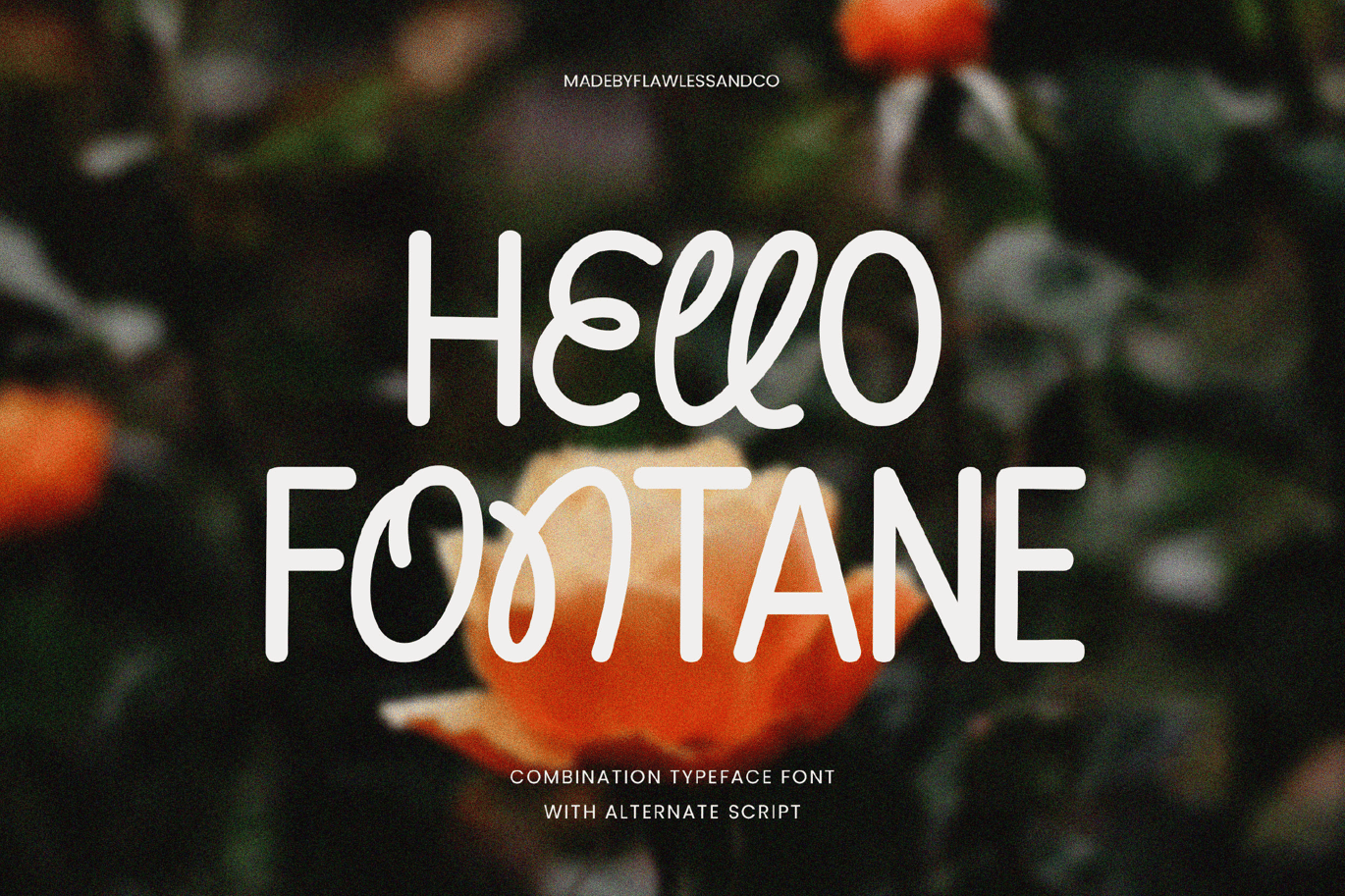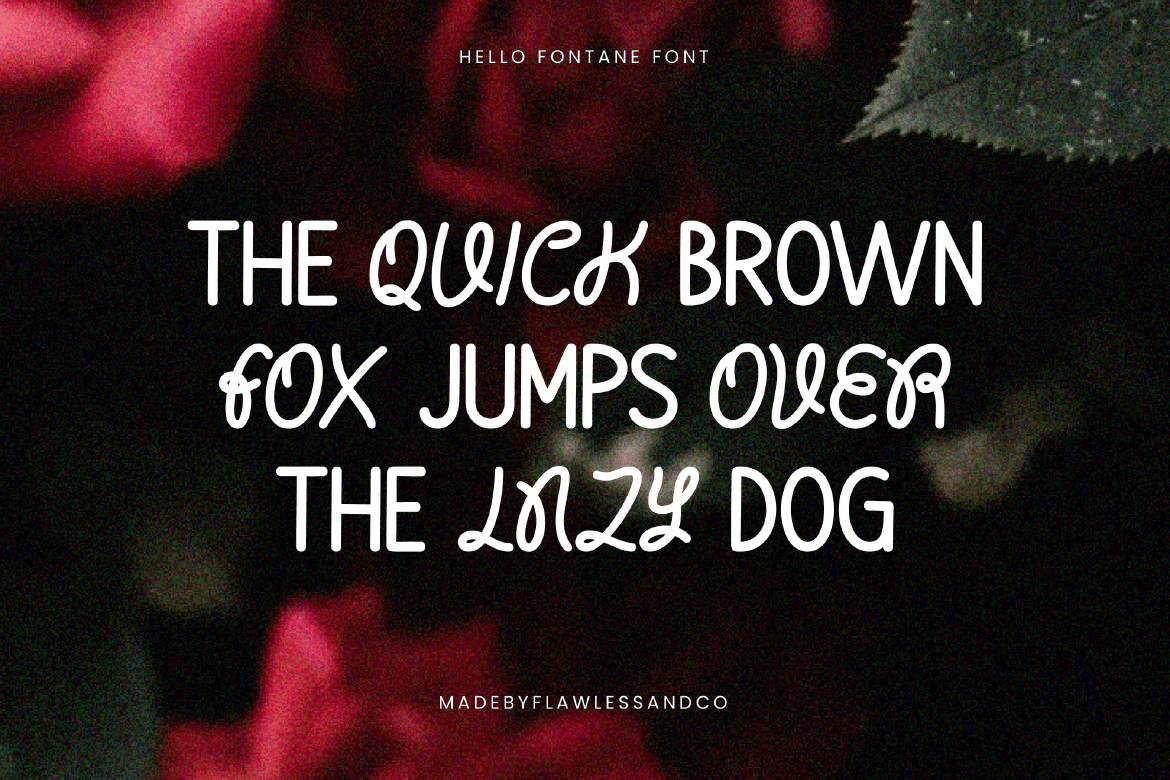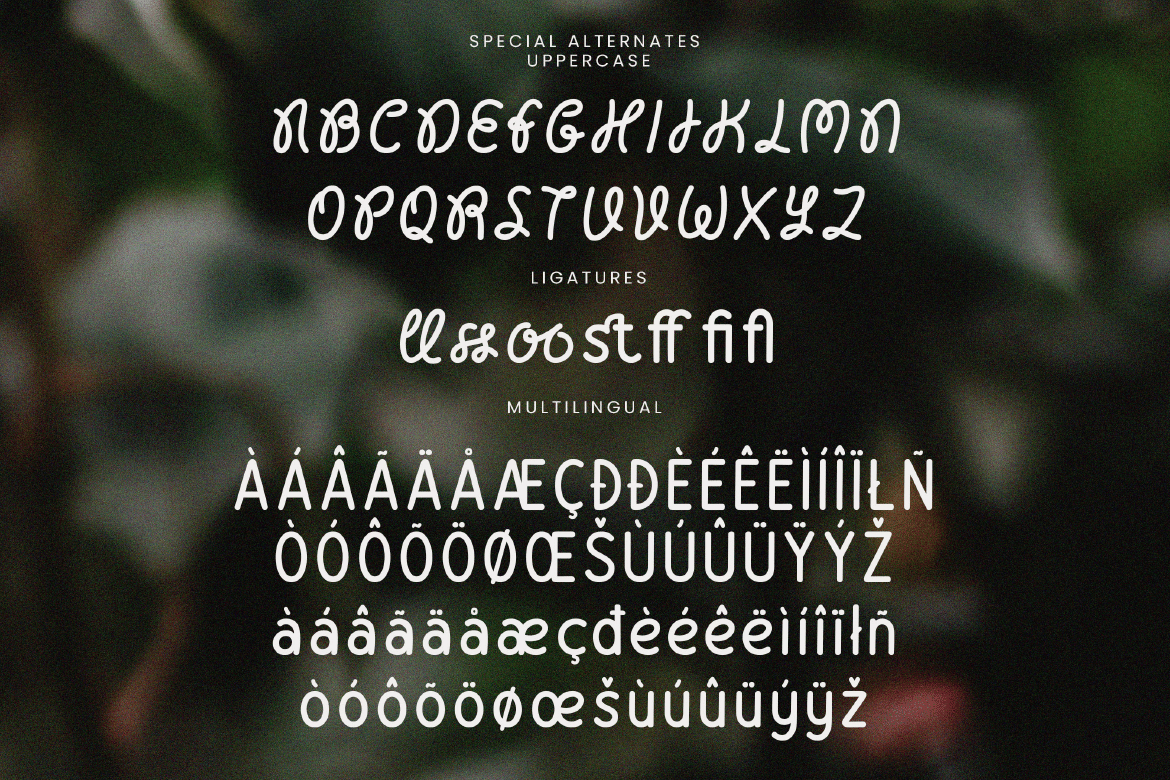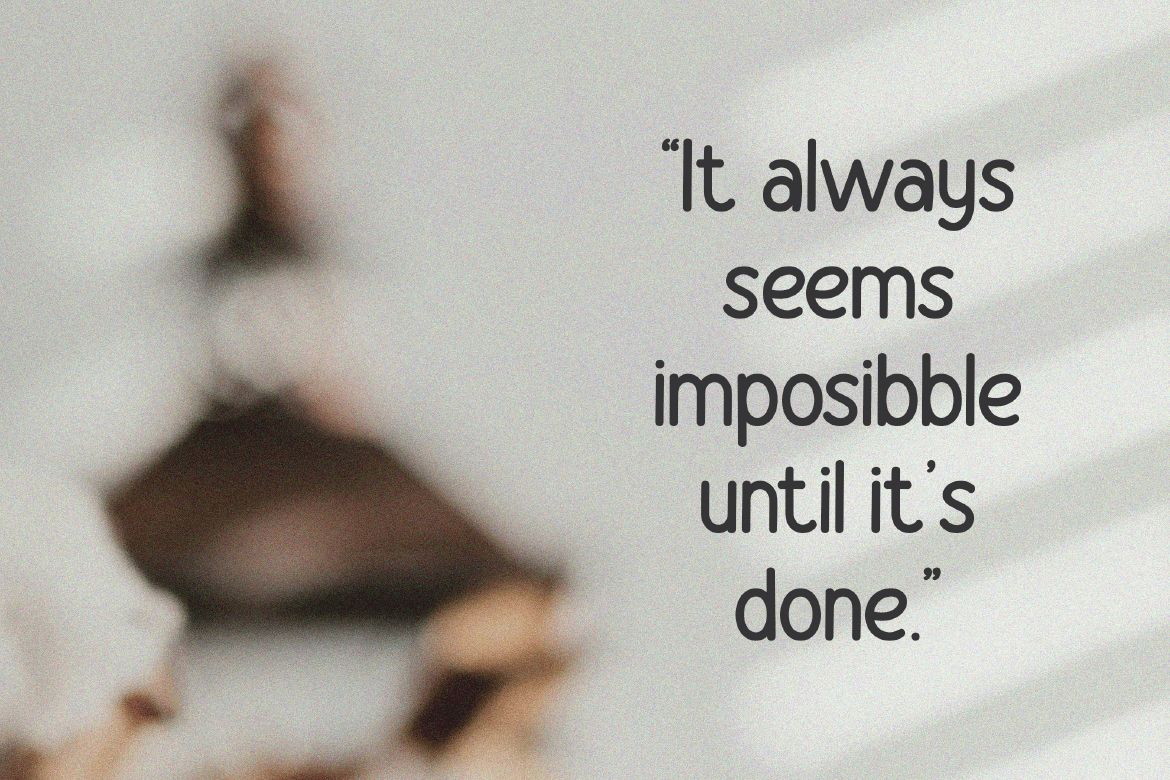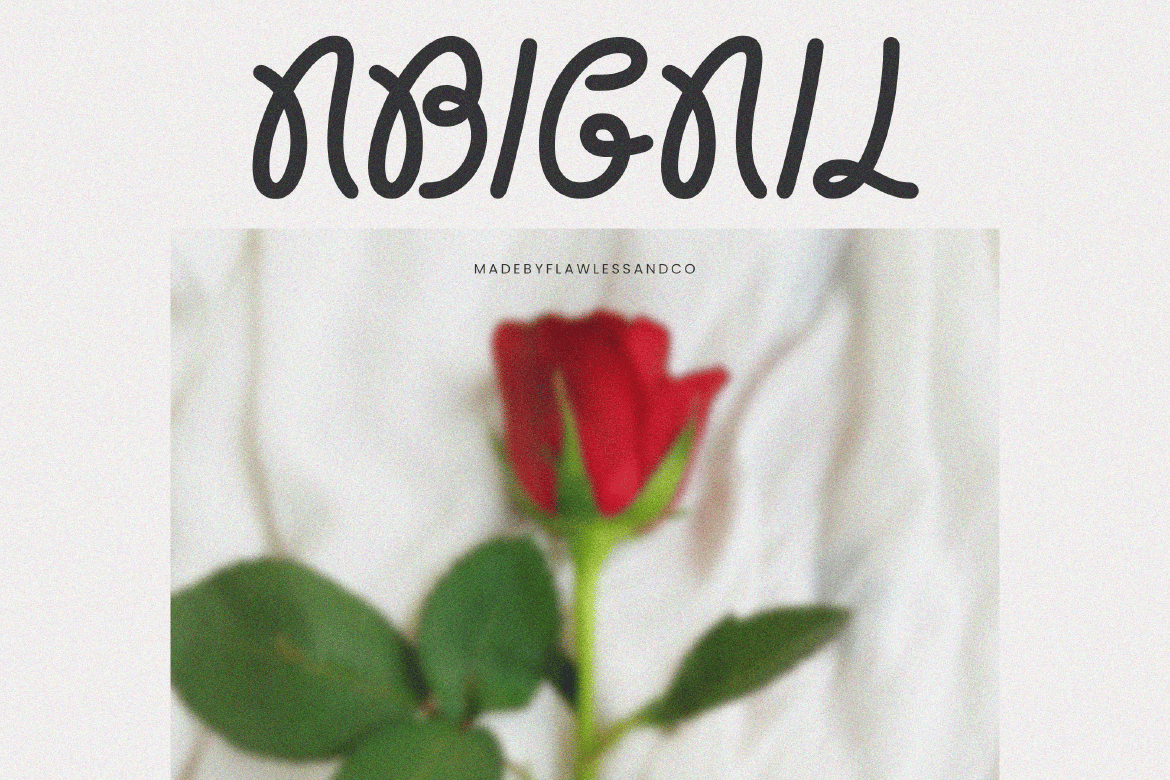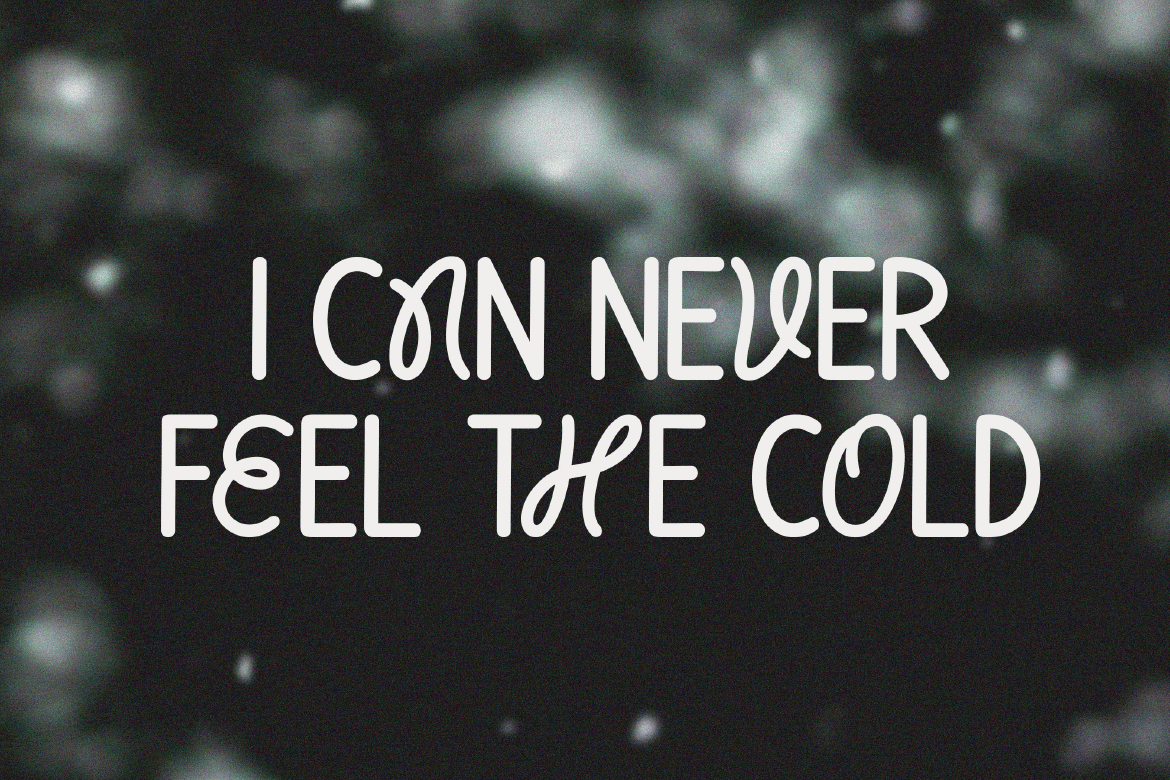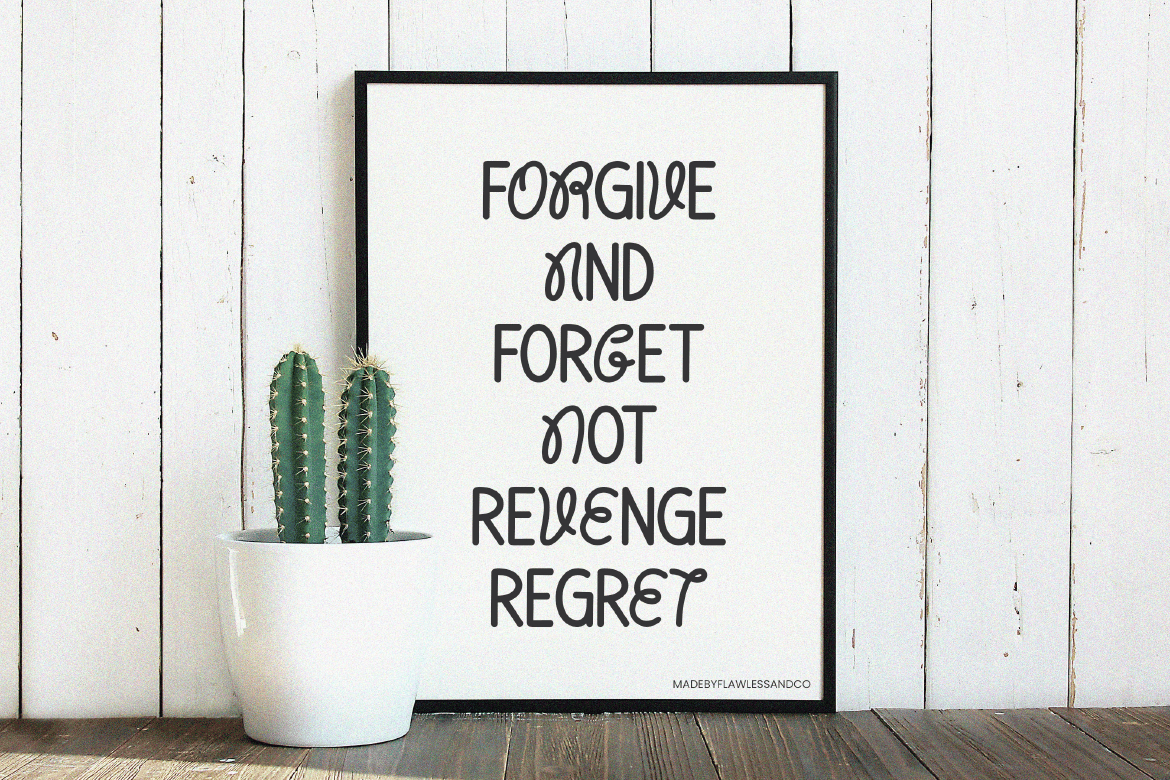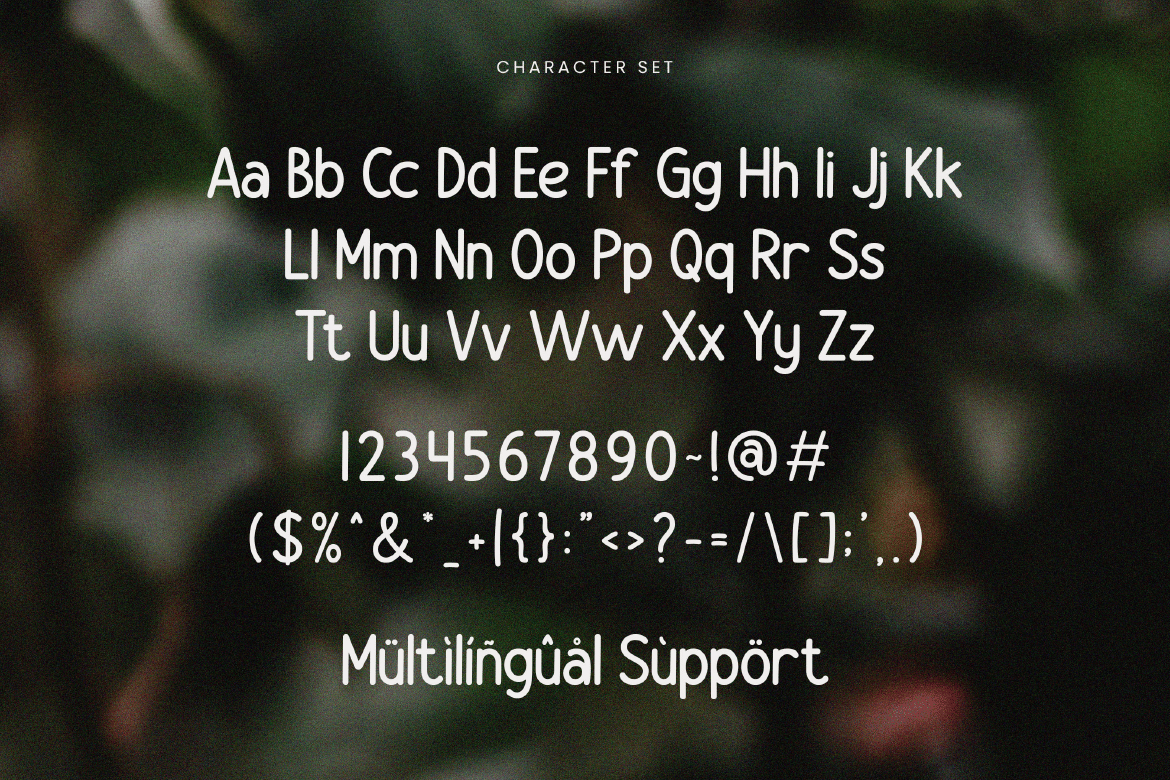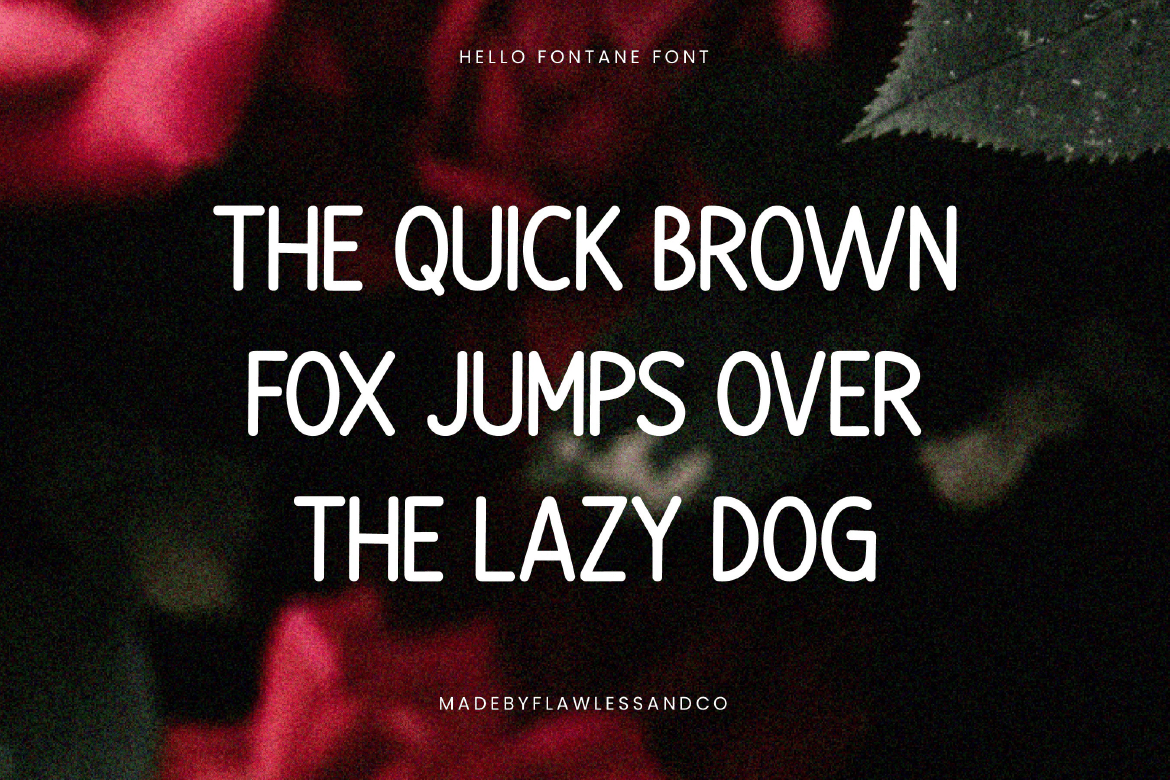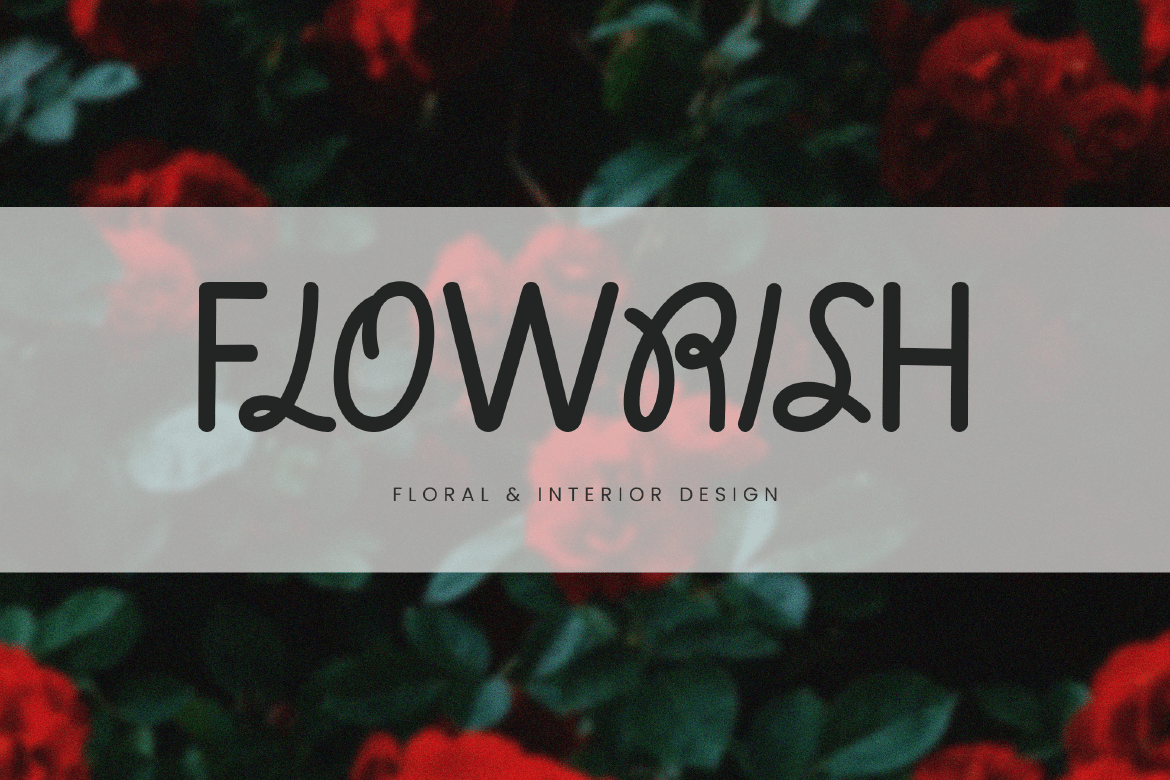
Hello Fontane – Brand Font
Introducing “Hello Fontane” a font combination sans serif with alternate script, a unique combination font that pairs a sleek sans serif typeface with an alternate script full of handwritten charm. Whether you’re crafting invitations, branding materials, posters, photography, or social media graphics, Hello Fontane offers the versatility and style to elevate your designs to new heights.